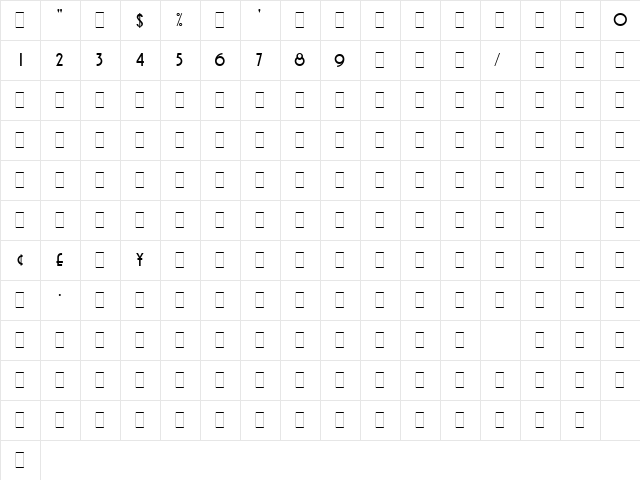
Avenida Alts LET Plain
Design Context for Avenida Alts LET Typeface
Avenida Alts LET takes a measured approach to typography — its balanced proportions and neutral character make it a reliable workhorse for both digital and print work.